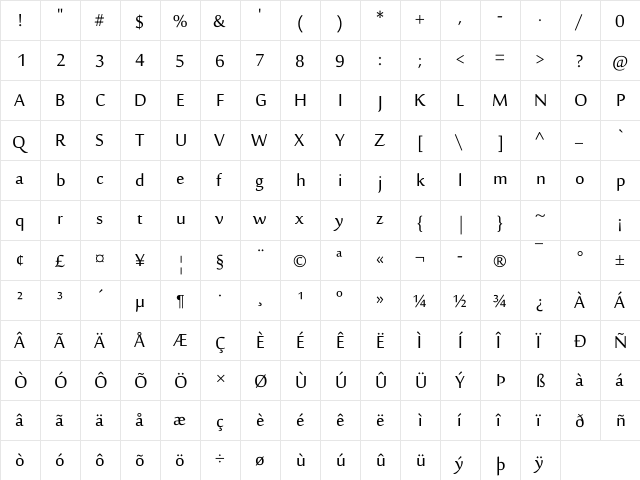
Majalla UI Regular
| Foundry | Mamoun Sakkal, Sakkal Design |
| Designer | Mamoun Sakkal, Sakkal Design and Steve Matteson, Ascender Corp. |
Design Context for Majalla UI Typeface
Majalla UI is a composed and adaptable typeface that performs quietly and consistently across a wide range of design contexts.